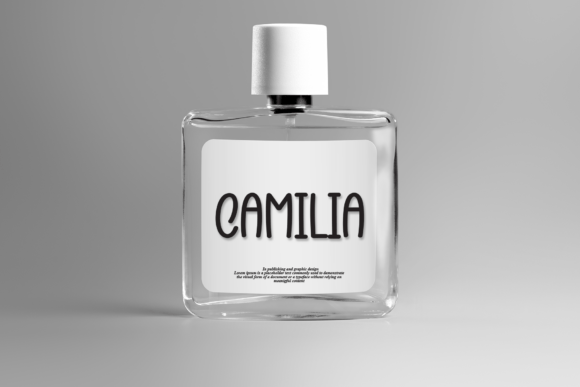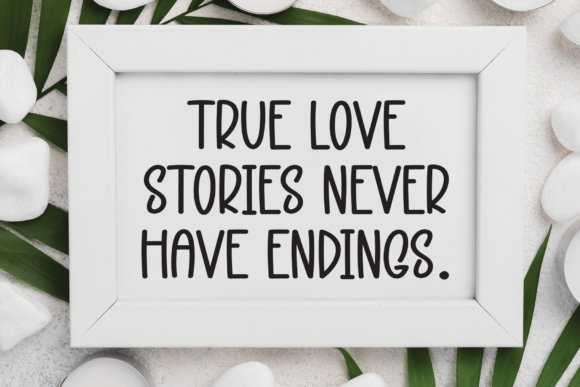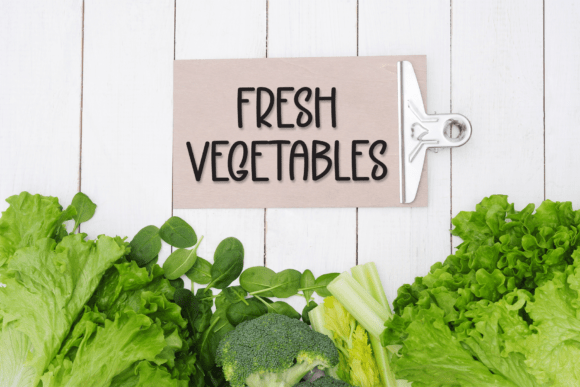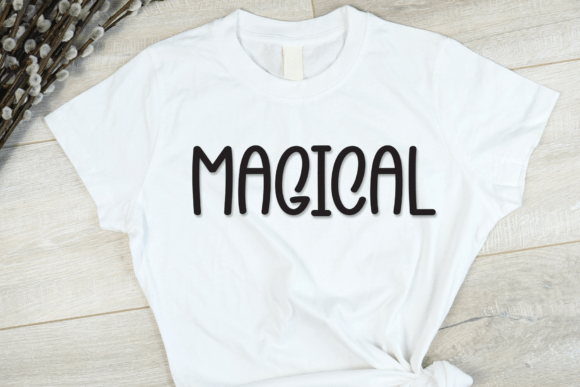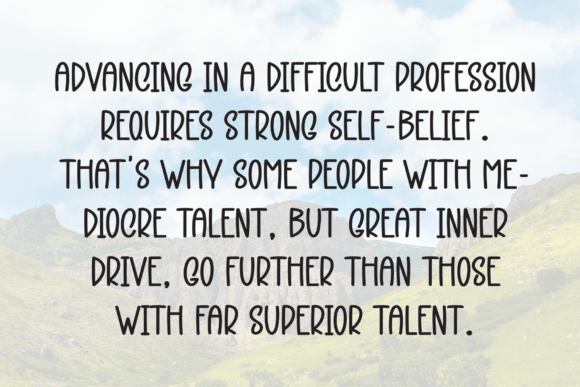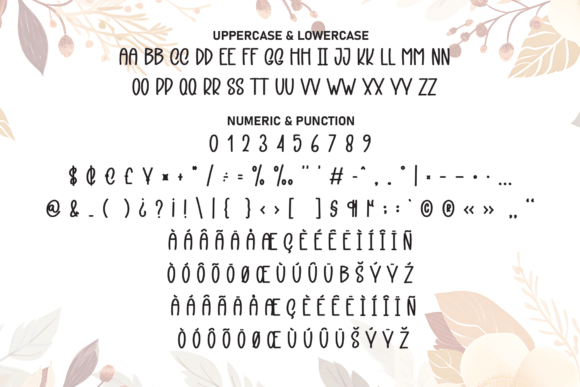
The Perfect Font for Your Next Creative Project: Autumn Flower
I’ll never forget the struggle I faced while working on a branding project for a local bakery. My client wanted a font that was both modern and playful, yet clear and readable. After hours of searching through font libraries, I stumbled upon Autumn Flower – a casual display font that instantly caught my attention. Its clean shapes, soft edges, and well-balanced letterforms made it the perfect fit for the project. In this article, I’ll share my experience with Autumn Flower, its features, and how to make the most of it in your designs.
First Impressions: What I Love About Autumn Flower
Autumn Flower has quickly become one of my go-to fonts for creative projects. Here’s what I love about it:
- ✨ **Modern simplicity**: Autumn Flower strikes the perfect balance between modern design and playfulness.
- ✅ **Readability**: The font’s clean shapes and well-balanced letterforms ensure that it’s easy to read, even at smaller sizes.
- 🎨 **Versatility**: Autumn Flower is suitable for a wide range of design projects, from posters and branding to packaging and social media graphics.
- 👍 **Friendly vibe**: The font’s soft edges and approachable design make it perfect for projects that require a friendly, approachable tone.
Honest Review: Small Quirks and Limitations
While Autumn Flower is an excellent font, it’s not without its quirks. Here are a few things to keep in mind:
- 🤔 **Limited use in formal designs**: Due to its casual nature, Autumn Flower might not be the best fit for formal designs, such as corporate reports or academic papers.
- ⚠️ **Glyph limitations**: While Autumn Flower has a range of glyphs and stylistic alternates, it might not have every special character you need.
The Story Behind Autumn Flower
Autumn Flower was designed by a team of creatives who wanted to create a font that captures the essence of relaxed design. Inspired by the beauty of nature and the simplicity of modern design, they crafted a font that is both playful and approachable. The result is a font that is perfect for creative projects that require a friendly and modern touch.
Here are some frequently asked questions about Autumn Flower:
| Q: What type of designs is Autumn Flower best suited for? | A: Autumn Flower is ideal for posters, branding, packaging, and social media graphics that require a friendly and modern touch. |
| Q: Does Autumn Flower support OpenType features? | A: Yes, Autumn Flower supports OpenType features, including glyphs and stylistic alternates. |